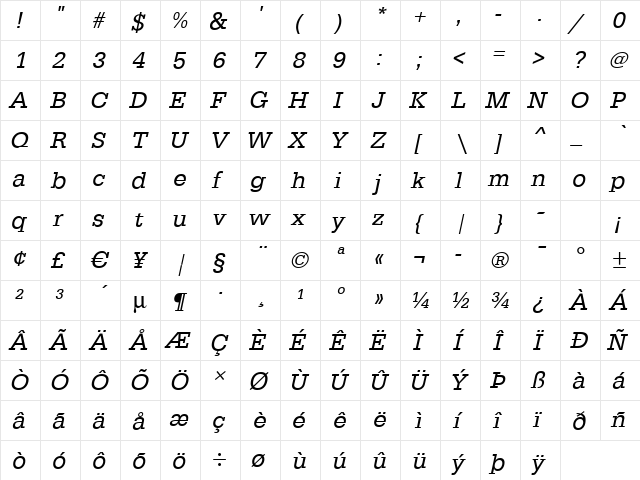
EgyptienneStd Italic
Design Context for EgyptienneStd Typeface
EgyptienneStd is a composed and adaptable typeface that performs quietly and consistently across a wide range of design contexts. The dynamic lean of this cut emphasises speed and emphasis in any layout.
Pro Tip: Use EgyptienneStd for emphasis, pull quotes, and subheadings where its slanted energy can add rhythm to the layout.